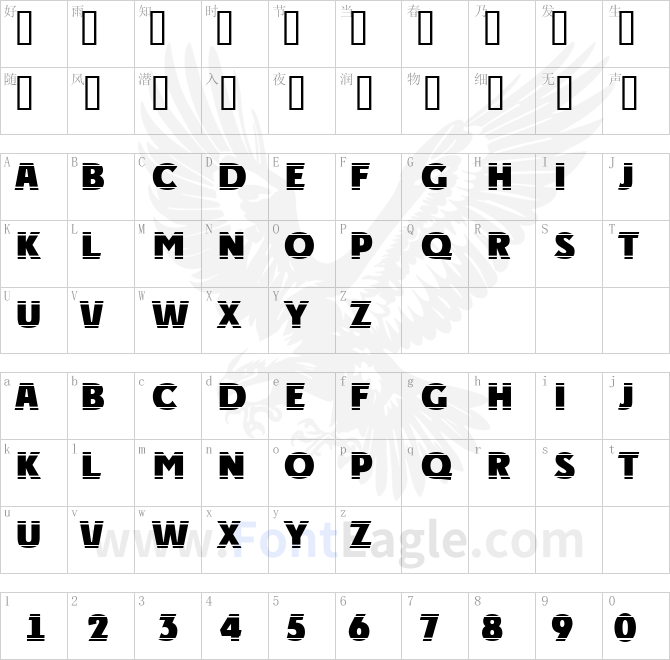
- Font name:a_PlakatTitulHlStr
a_PlakatTitulHlStr-ExtraBold is a great font, widely used in graphic design, single-page menu design, poster design and other fields, and is deeply loved by designers.a_PlakatTitulHlStr-ExtraBold download.